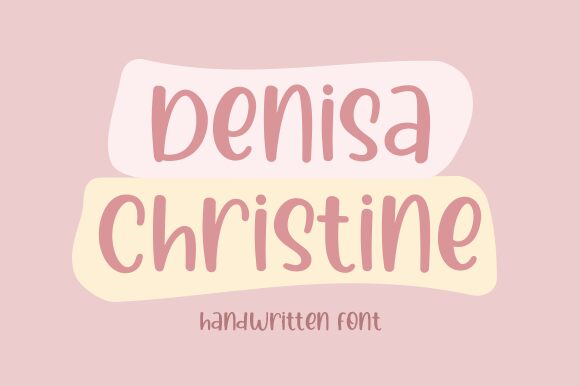
Denisa Crishtine, the lovely handwritten font designed by Nirmala Creative, is the perfect addition to any project that requires a touch of elegance and sophistication. This versatile semi-bold font is suitable for a variety of design projects such as wedding invitations, greeting cards, social media graphics, branding materials and more. With its beautiful cursive style and varying font widths, Denisa Crishtine effortlessly adds a personal and authentic touch to any design. Whether you're creating something romantic or playful, this font is sure to impress your audience and elevate your overall design aesthetic.